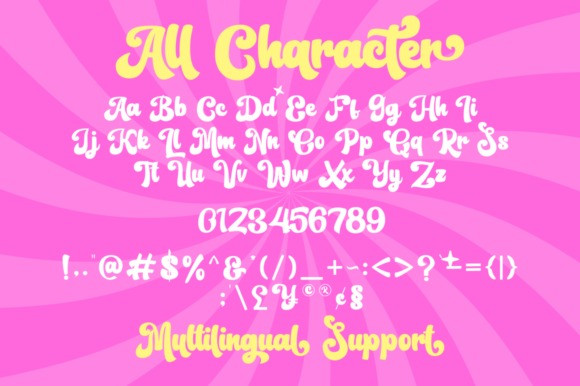
Meginta Font
Meginta Font – Combining a classic touch with a modern design, this retro vintage script font gives every word strong character. Each letter on Meginta is carefully sculpted, creating a captivating work of art. Beautiful and elegant handwriting maintains a bygone era aesthetic, while sophisticated design adds a new dimension to each creation.
Meginta is suitable for logos, banners, and more. From web design to printed materials, Meginta will accentuate your message with elegance and power. At first glance, Meginta gives a charming classic impression, but he also shows the ability to adapt and express a modern style that suits today’s times.
With Meginta, you get not only a stunning retro vintage script font, but a creation full of character and personality. So, what are you waiting for? Give a unique vintage touch to your designs, and let Meginta become a star-studded star